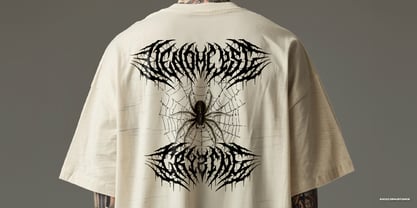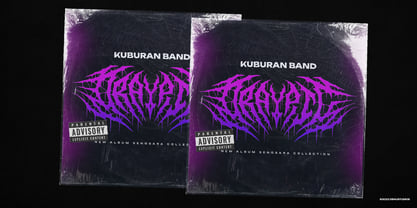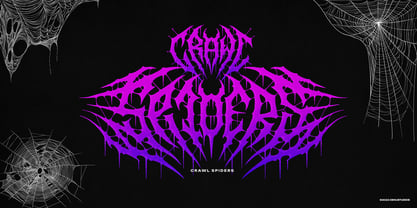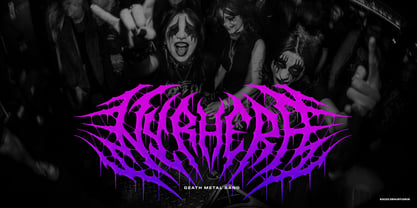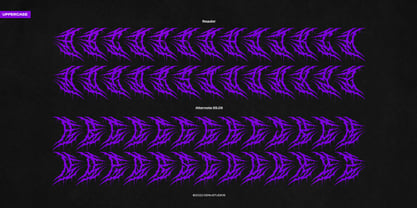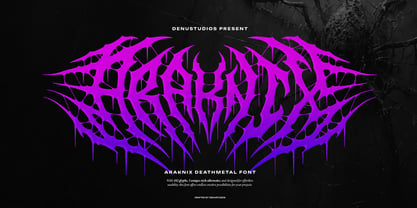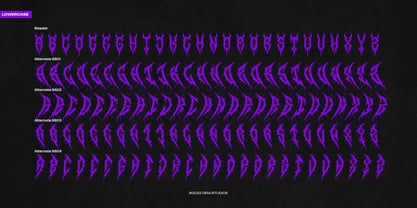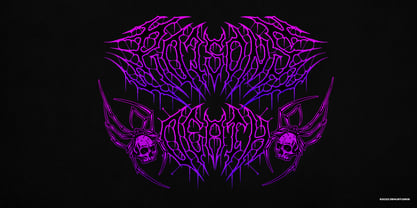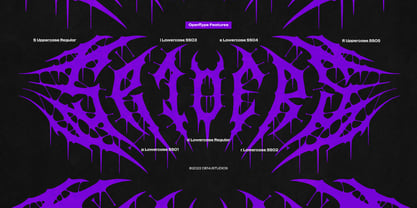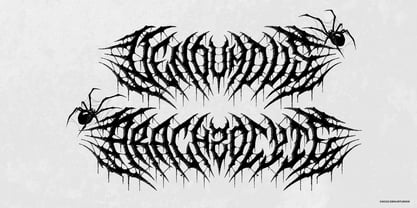
Araknix
by Denustudio
The Araknix Font Family was designed by Dede Nugraha and published by Denustudio. Araknix contains 1 styles. More about this family
Araknix | Black Metal Font, from Denustudios, suitable for any projects such as: logos, branding projects, homeware designs, product packaging, mugs, quotes, posters, shopping bags, t-shirts, book covers, name card, invitation cards, greeting cards, label, photography, watermark, special events, and all your other lovely projects that need Black Metal Font a taste.